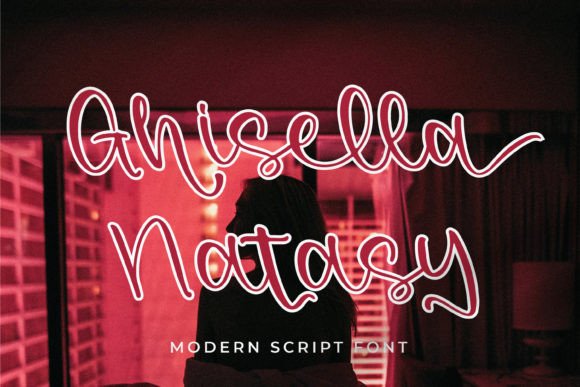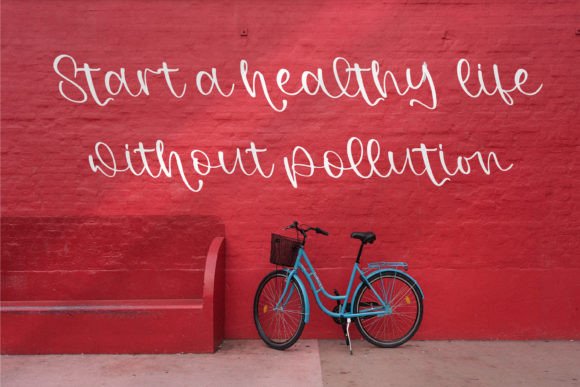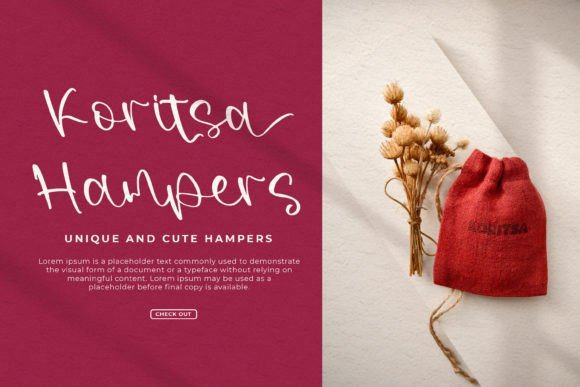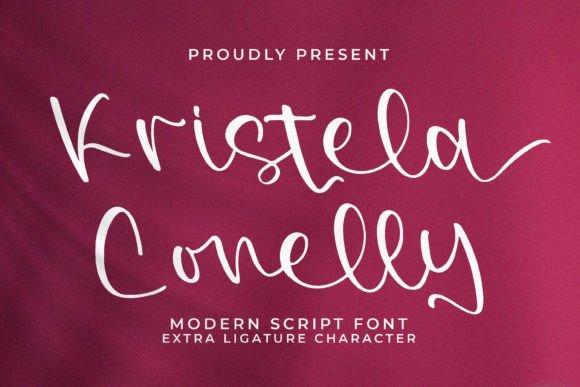
Introduction to Kristela Conelly Font
Kristela Conelly is a modern script font, perfect for any project such as logos, branding projects, homeware designs, product packaging, mugs, quotes, posters, shopping bags, t-shirts, covers books, business cards, invitation cards, greeting cards, labels, photography, watermarks and much more.
Key Features of Kristela Conelly Font
Why Choose Kristela Conelly Font?
Kristela Conelly Font offers exceptional quality and versatility, making it a valuable addition to your design toolkit. Whether you’re creating for personal projects or commercial use, Kristela Conelly Font delivers professional results.